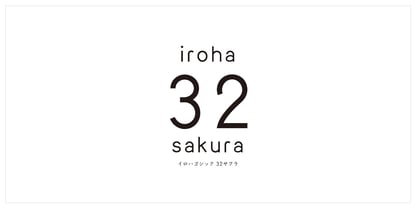
iroha 32sakura StdN
The iroha 32sakura StdN Font Family was designed by and published by Kinuta Font Factory. iroha 32sakura StdN contains 1 styles. More about this family
The iroha 32sakura has the same design concept as the iroha 30momiji, but incorporates the speed of cursive script, giving it a sharper look. iroha Kanji characters are the same. The design is simple, with an awareness of straight lines. There are 12 kana in total.